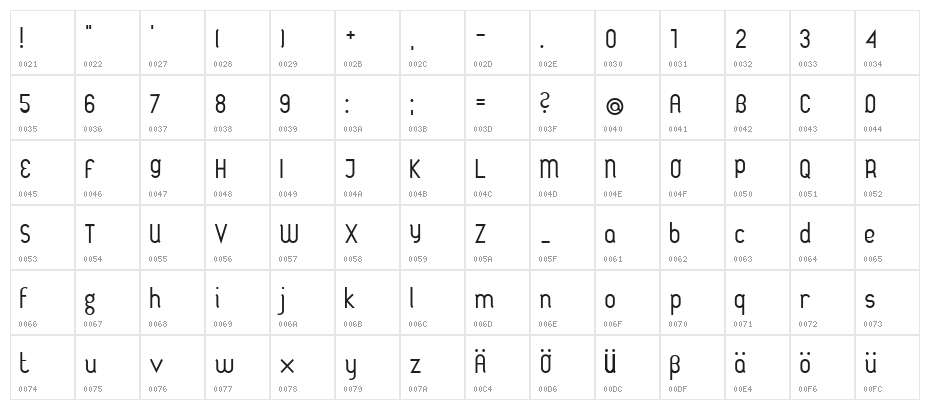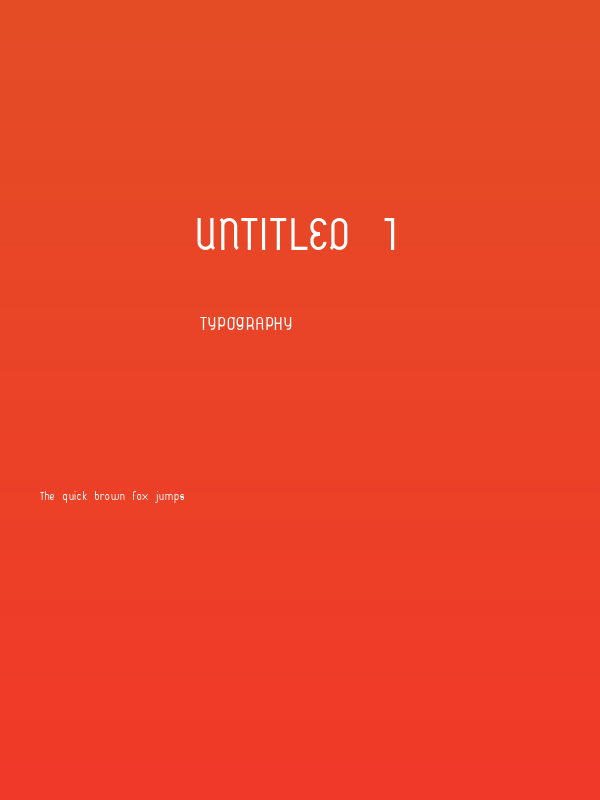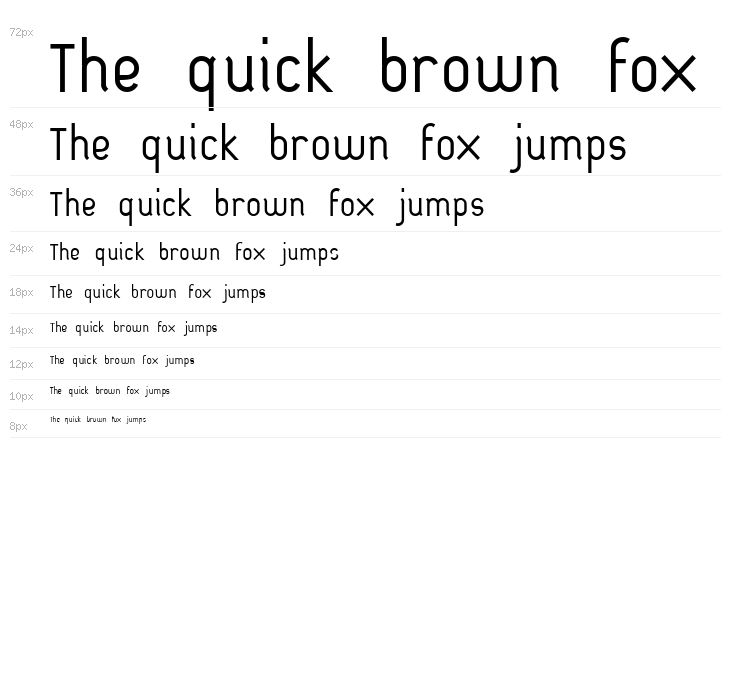
Untitled 1 Font
Untitled 1 Description
This font features a modern and geometric design with clean lines and a structured appearance. The characters are uniform in width, giving it a monospaced feel, although it maintains a certain elegance with its rounded edges and subtle curves. The uppercase letters are bold and prominent, while the lowercase letters maintain a consistent style that complements the uppercase. The numerals are clear and easily distinguishable, making them suitable for various applications. Special characters are well-defined, adding to the font's versatility. Overall, this font combines modern aesthetics with functional design, making it suitable for both digital and print media.
| Proposed Projects | Ideal for coding environments, technical documentation, modern branding, and digital interfaces. |